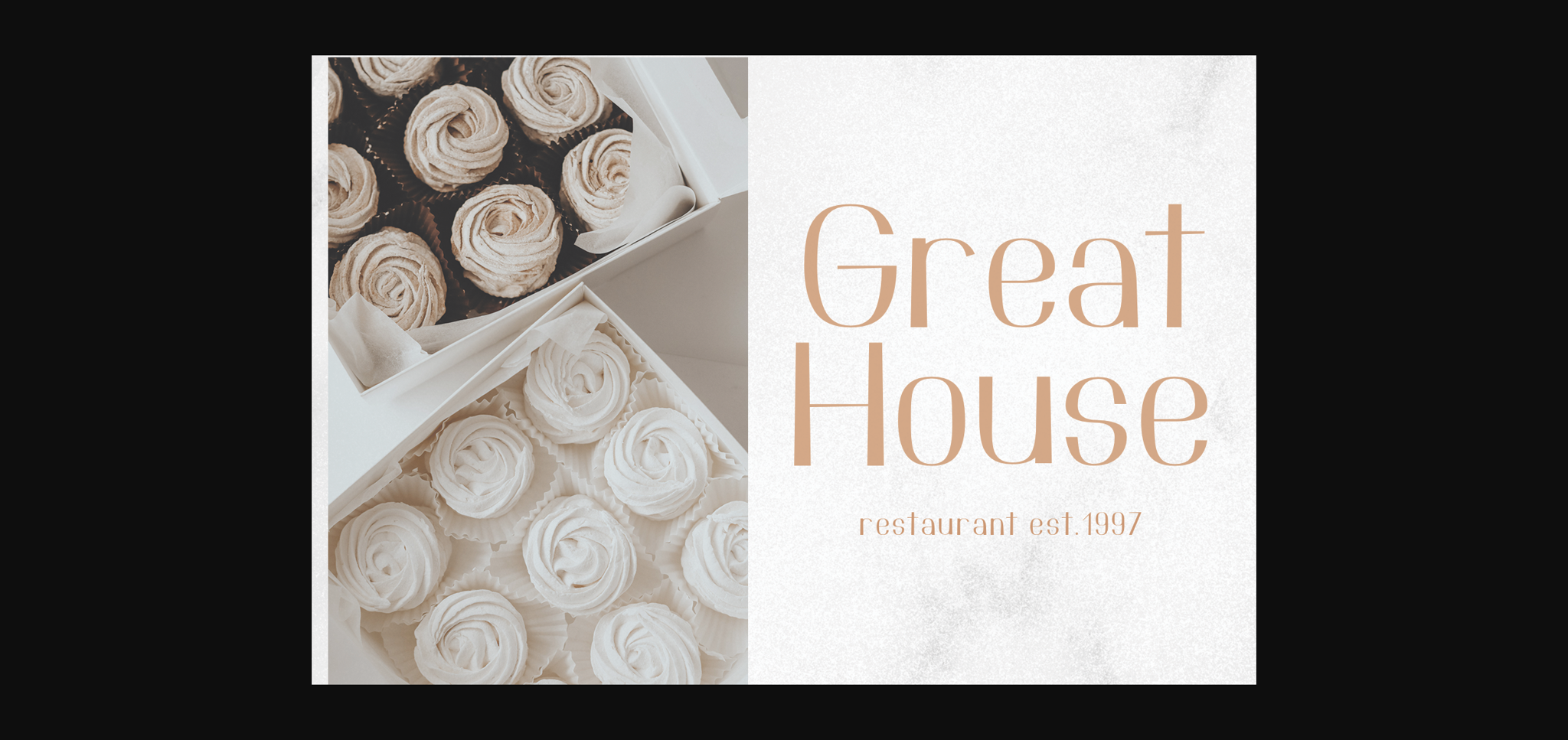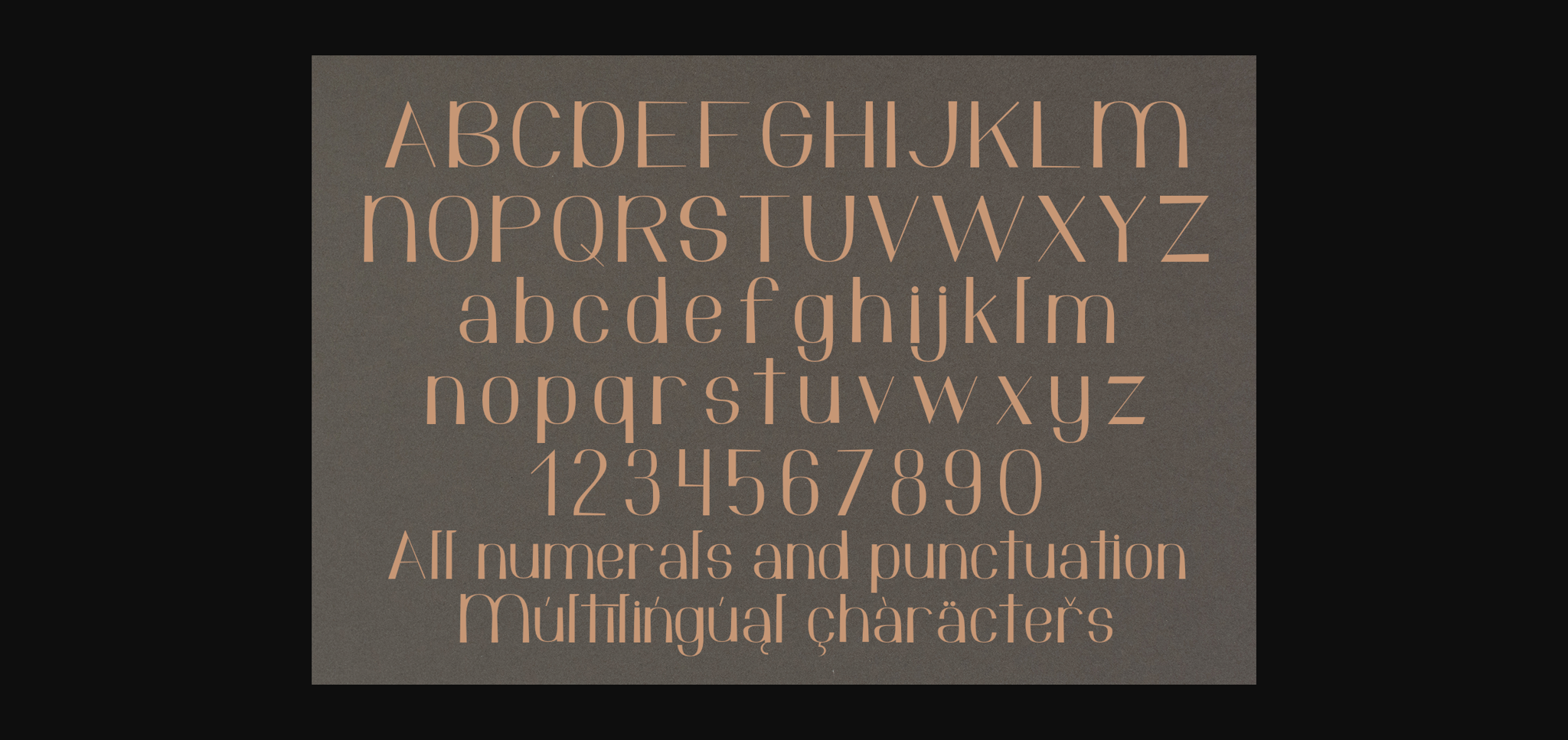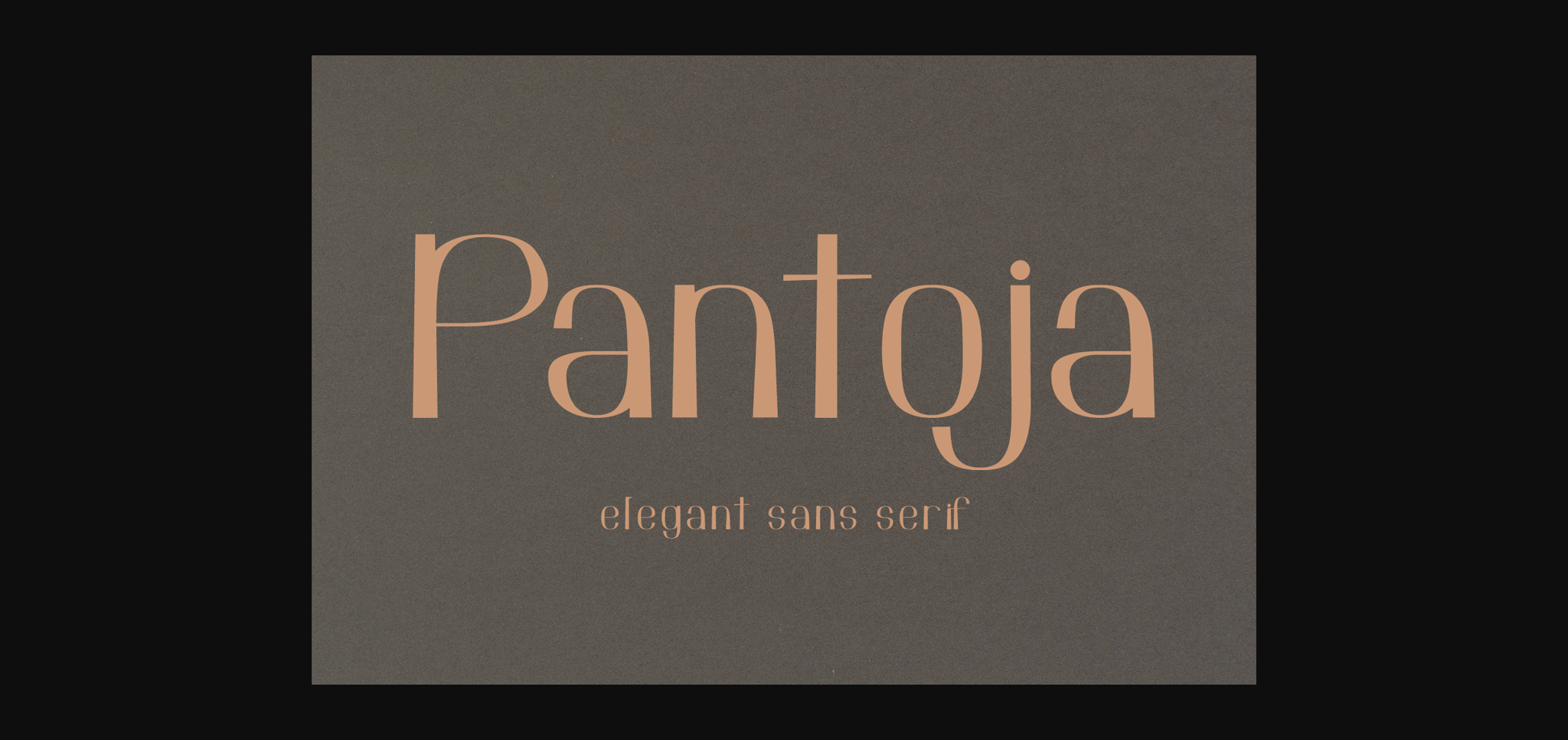
About Pantoja Font
Pantoja is an elegant and vintage styled sans serif font. It can be used for various purposes such as logos, wedding invitations, headings, t-shirts, letterhead, signage, labels, news, posters, badges and so much more.